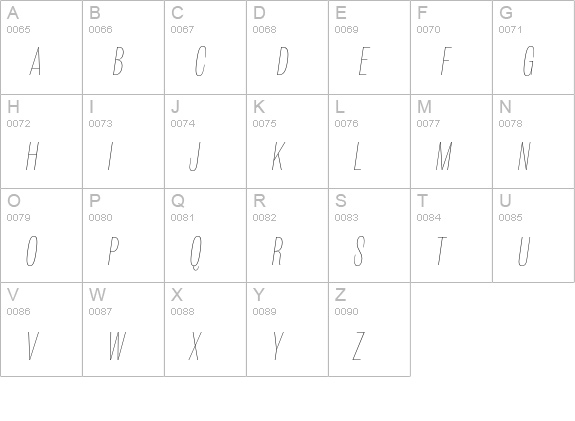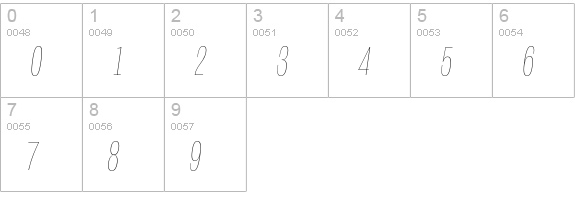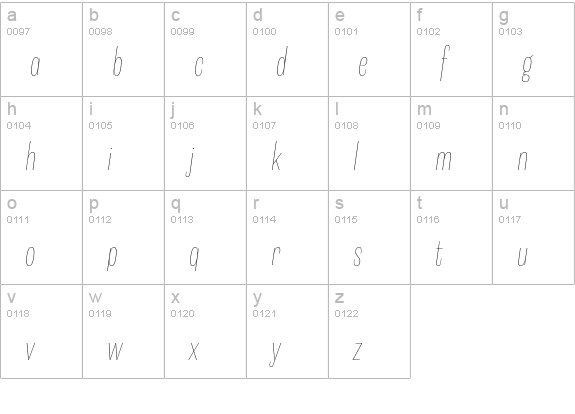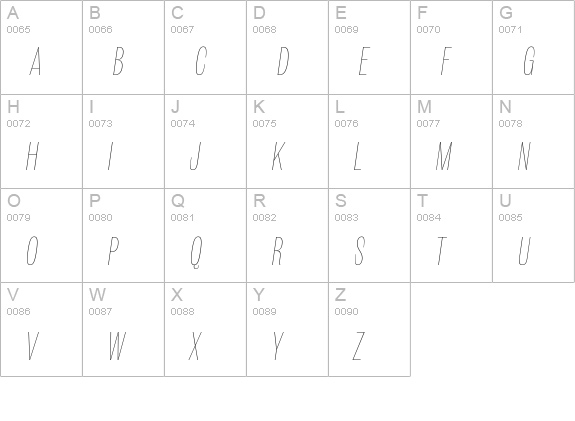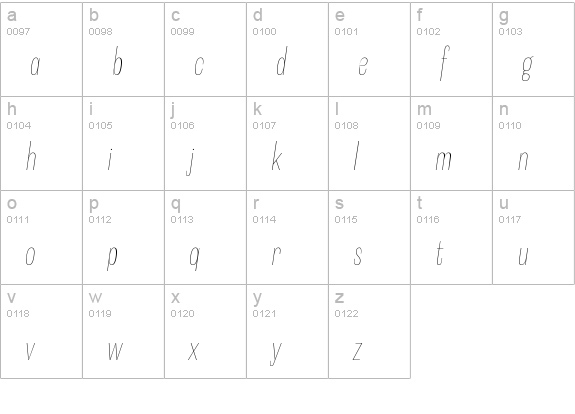
Shiva Italic is a distinctive, italic variant in the Shiva typeface family \xE2\x80\x94 well suited to design and typography projects.
Shiva Italic font is a sleek and modern typeface that exudes elegance and sophistication. With its stylish curves and unique letterforms, this font is perfect for adding a touch of class to any design project. Whether you're creating a logo, brochure, or website, Shiva Italic will make your text stand out with its distinctive look. Best of all, Shiva Italic font is completely free to download at FontsMarket.com. This means you can easily access this beautiful typeface without any cost, making it a valuable addition to your font collection. Don't miss out on the opportunity to elevate your designs with Shiva Italic font - download it today and start creating stunning visuals that will leave a lasting impression.